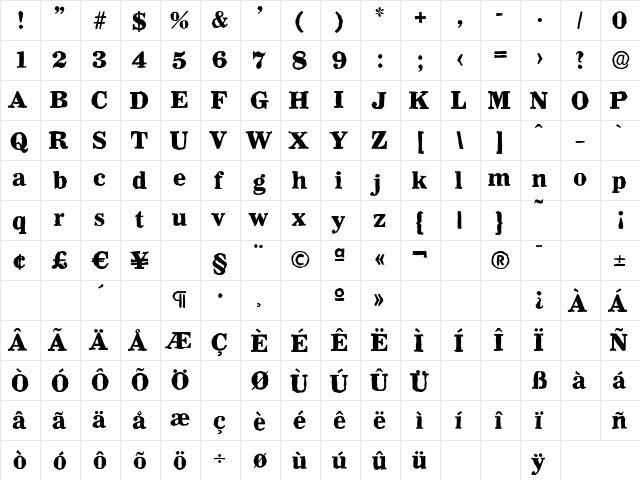
WichitaAntique-Xbold Regular
Design Context for WichitaAntique-Xbold Typeface
WichitaAntique-Xbold wears its vintage influences proudly, with letterforms that recall mid-century signage, classic packaging, and nostalgia-driven design. The heavy weight commands attention and anchors typographic hierarchies.
Font Pairing: Combine WichitaAntique-Xbold with a simple slab or neutral sans — period-accurate companions reinforce the vintage feel without competing for attention.
Pro Tip: Use WichitaAntique-Xbold for headlines and pull quotes rather than body copy — its personality is best appreciated in short, focused bursts.